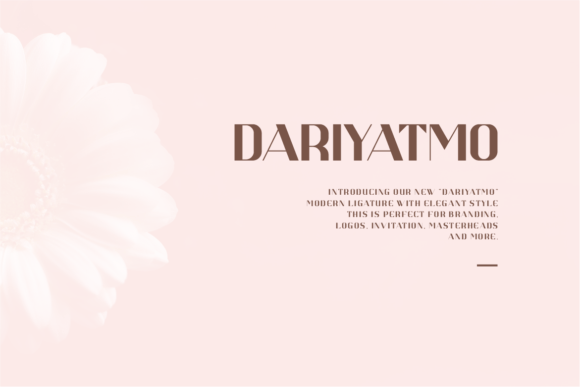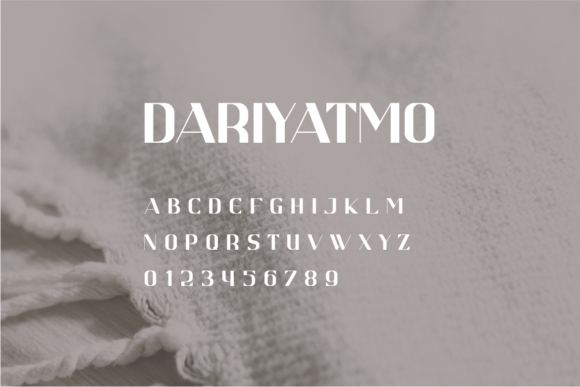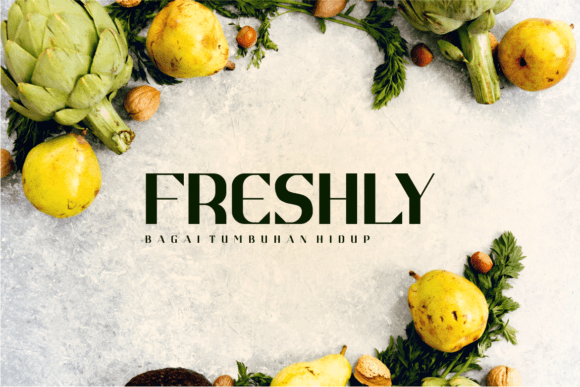
Have you ever stared at a blank canvas, feeling the pressure to create something truly unique? We’ve all been there. Sometimes, all it takes is the right tool to spark inspiration. For designers, finding the perfect font can be just the catalyst needed to bring a project to life.
Enter Dariyatmo Font, a stunning display font that’s sure to captivate your audience. With its intricate details and sleek design, this font is perfect for adding a touch of elegance to any creation. Whether you’re designing a logo, a brochure, or a social media post, Dariyatmo Font has the potential to elevate your work to new heights.
As a valuable addition to your font library, Dariyatmo Font offers endless possibilities for creative expression. Its versatility and sophistication make it an essential tool for designers of all levels, from beginners to seasoned professionals.
Dariyatmo Font Key Features
- Size: The font family consists of multiple weights, ranging from Extra Light to Bold, providing a range of design options.
- Unique Characteristics: Dariyatmo Font features a unique blend of traditional and modern elements, making it suitable for various design applications, including branding, advertising, and editorial content.
- Language Support: The font supports multiple languages, including Latin, Arabic, and other languages that use the Latin script, making it a versatile choice for global design projects.
- Kerning and Ligatures: Dariyatmo Font includes advanced kerning and ligature features, ensuring smooth text rendering and a professional appearance.
Dariyatmo Font Review
Overall, I’m impressed with the unique aesthetic of Dariyatmo Font. The combination of traditional and modern elements ✨ gives it a fresh, yet timeless feel. The font is highly versatile and can be used in various design contexts, from logos and branding to editorial and digital content.
- ✨ Unique blend of traditional and modern elements, making it highly versatile.
- ✨ Wide range of applications, from logos and branding to editorial and digital content.
- ✨ Clear and legible font, making it easy to read.
- ⚠️ Limited support for certain languages, which might limit its use in multilingual projects.
- ⚠️ May not be suitable for body text due to its decorative nature.
- ⚠️ Some users might find it too ornate or distracting.
Overall, Dariyatmo Font is a great addition to any designer’s toolkit. While it may have some limitations, its unique aesthetic and versatility make it a great choice for the right project. With a little creativity and experimentation, you can unlock its full potential and create stunning designs.
Dariyatmo Font Practical Application Guide
To get the most out of the Dariyatmo font, follow these tips:
- Pair the font with other elegant fonts for a sophisticated look.
- Use the font to create custom graphics and illustrations.
The Dariyatmo font is perfect for:
- Custom graphics and illustrations.
Alternatives to Dariyatmo Font
1. Baskerville Font
Baskerville is a classic serif font designed by John Baskerville in the 18th century. It is ideal for use in formal documents, magazines, and books. Baskerville has a more traditional look compared to Dariyatmo Font, with a focus on elegance and sophistication. While Dariyatmo Font has a more modern feel, Baskerville is better suited for projects that require a timeless and refined look.
Lato is a sans-serif font designed by Łukasz Dziedzic in 2010. It is a modern and clean font that is perfect for use in digital interfaces, websites, and apps. Lato is more versatile than Dariyatmo Font, with a wider range of font weights and styles. While Dariyatmo Font has a unique and quirky feel, Lato is better suited for projects that require a clean and minimalist look.